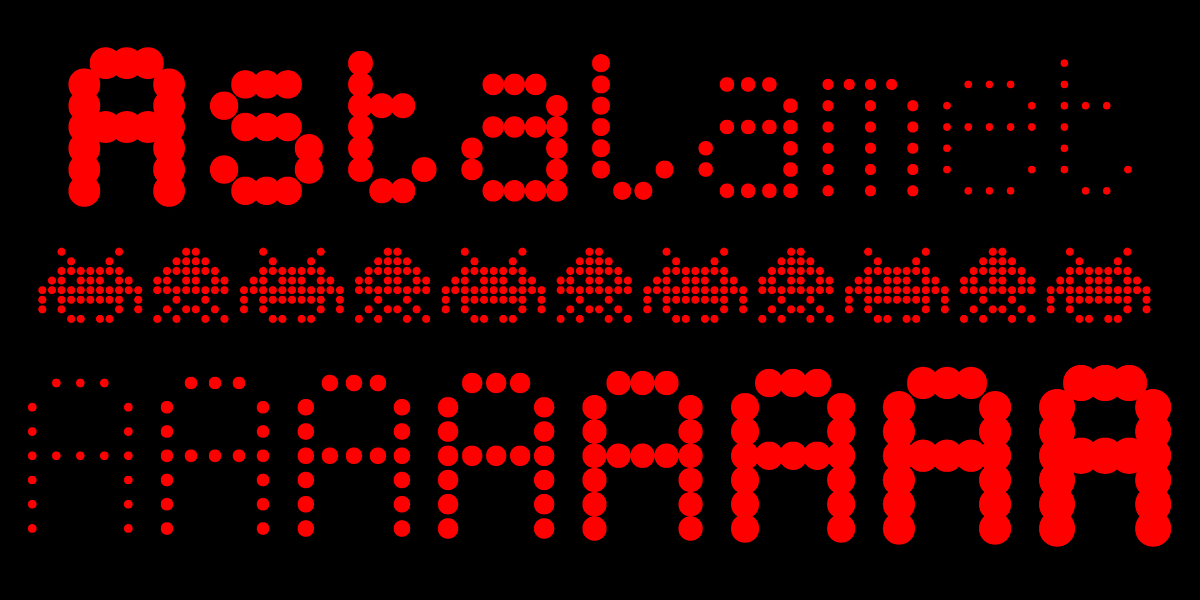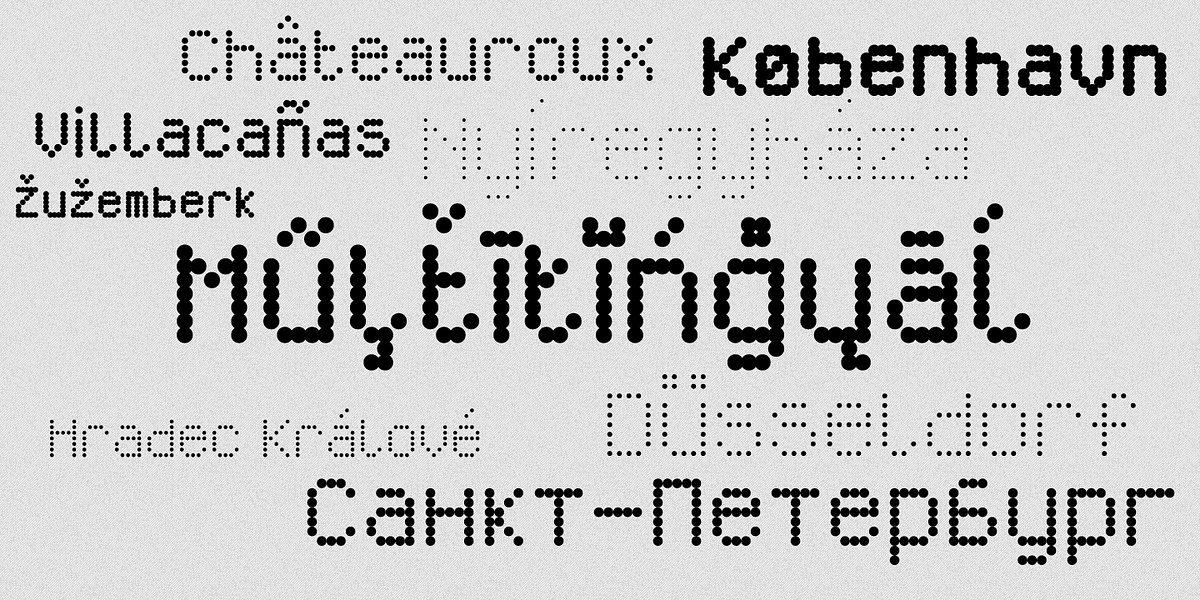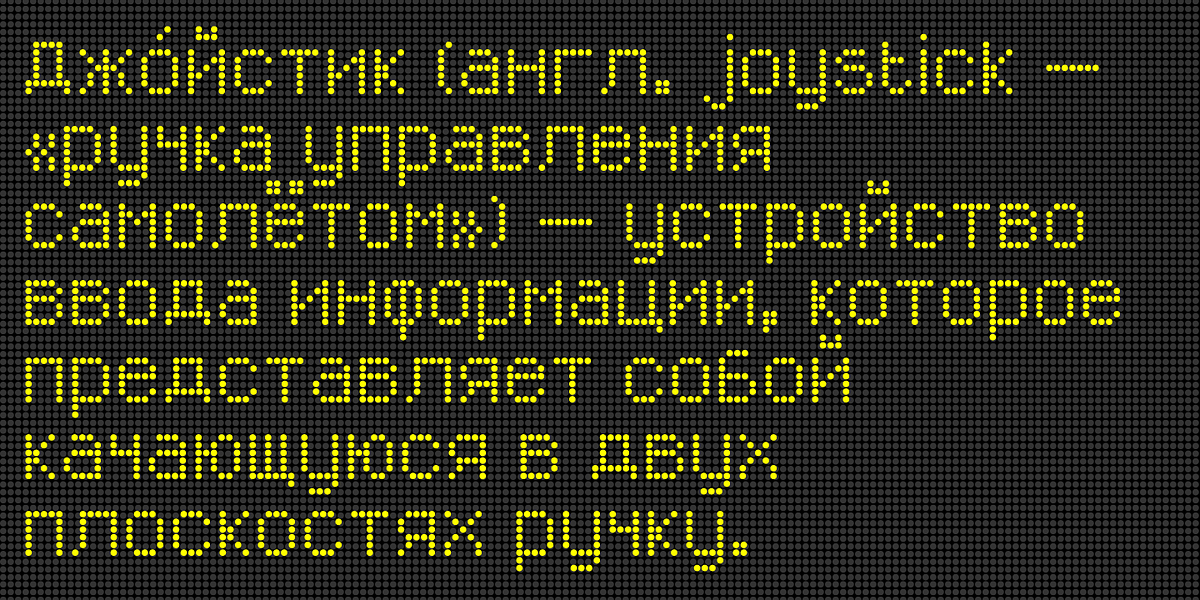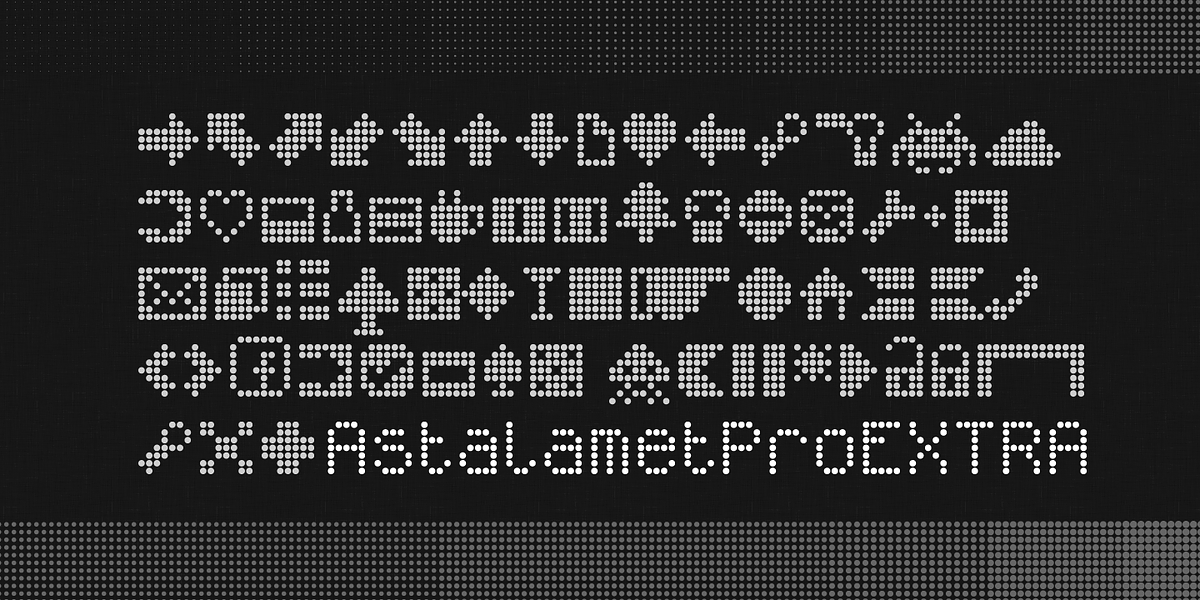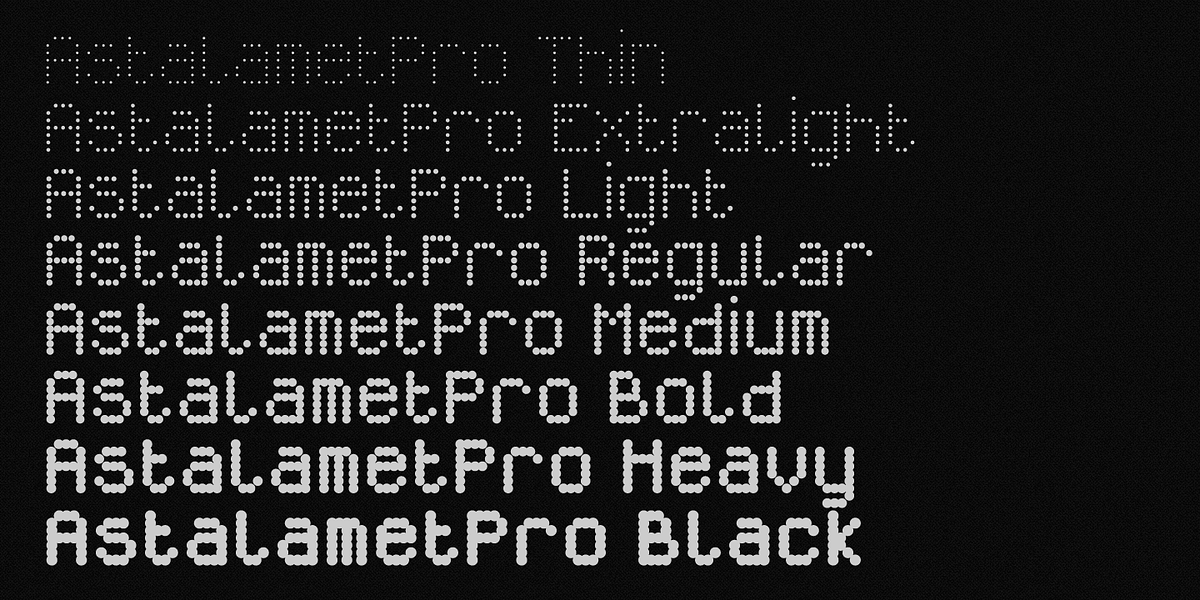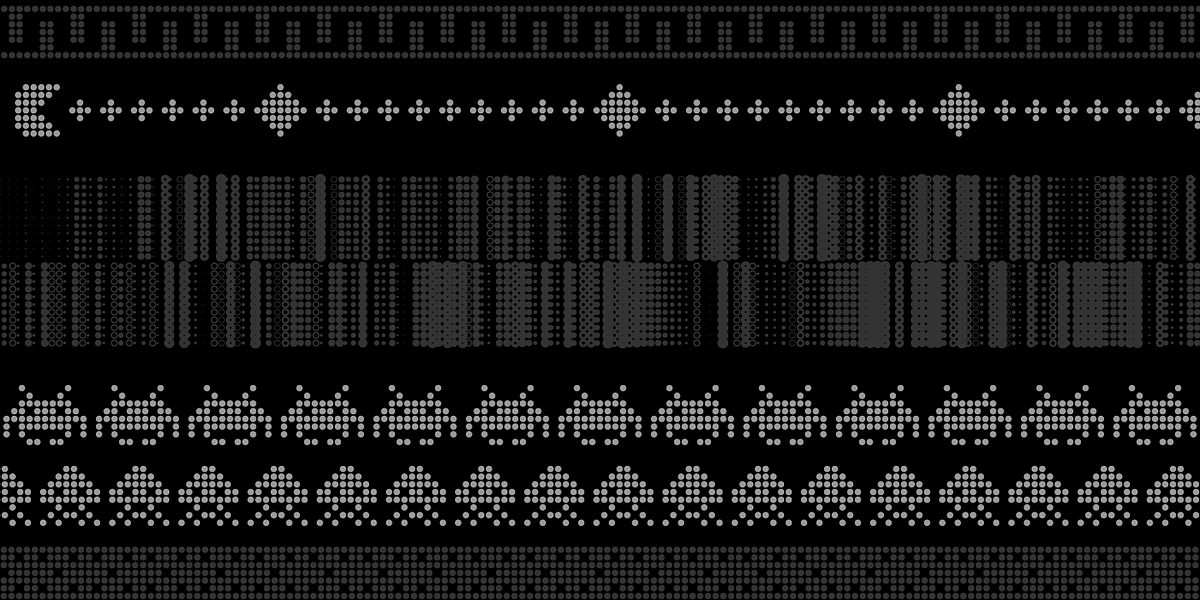
Astalamet Pro
Astalamet Pro is a redesigned dingbat font featuring pixel art icons. It includes support for Western, Central and Eastern European, Baltic, and Turkish languages.